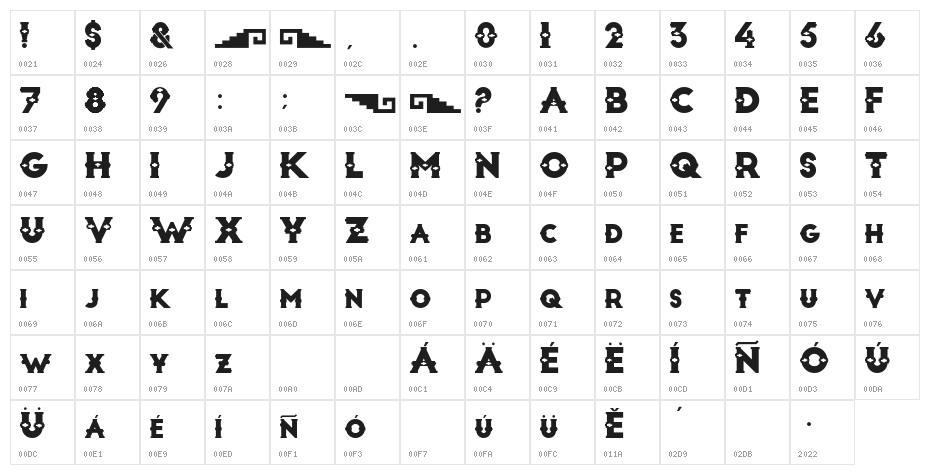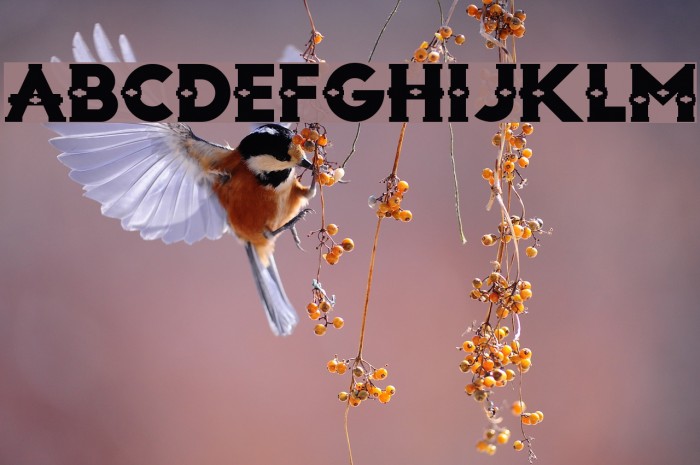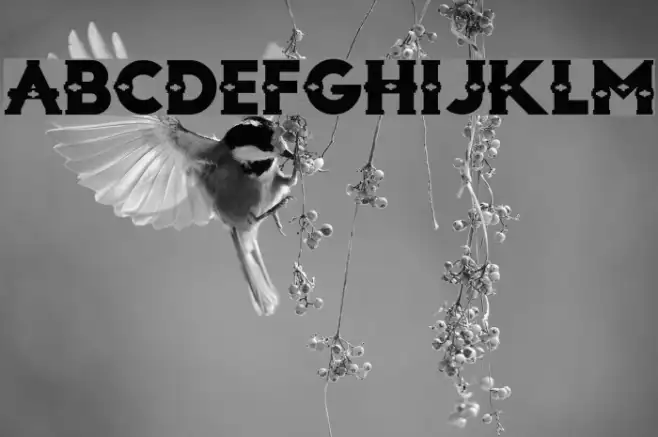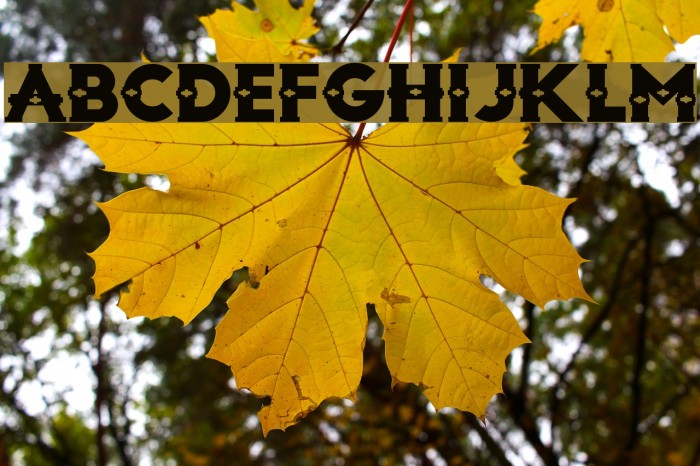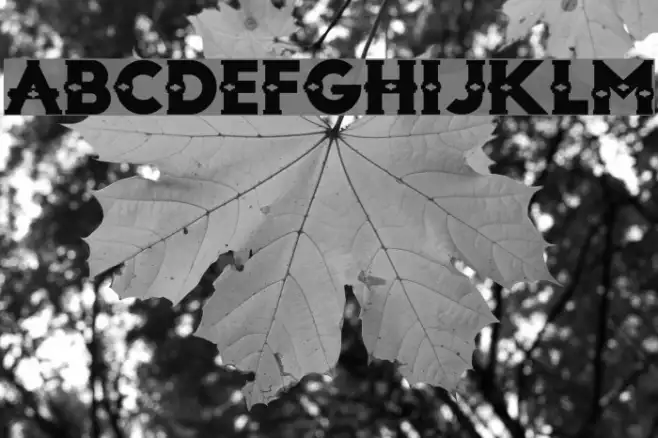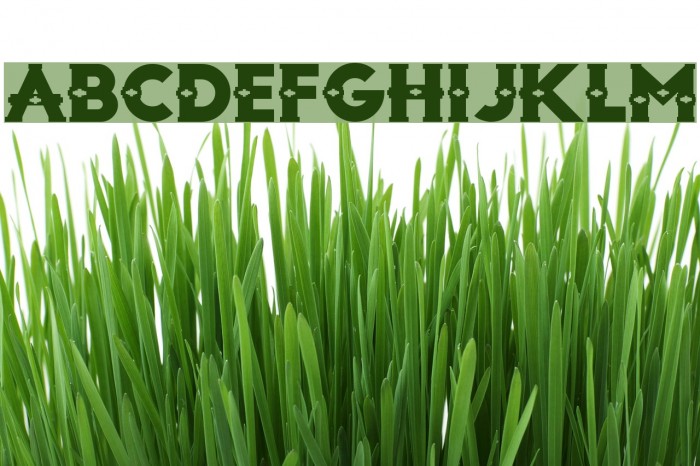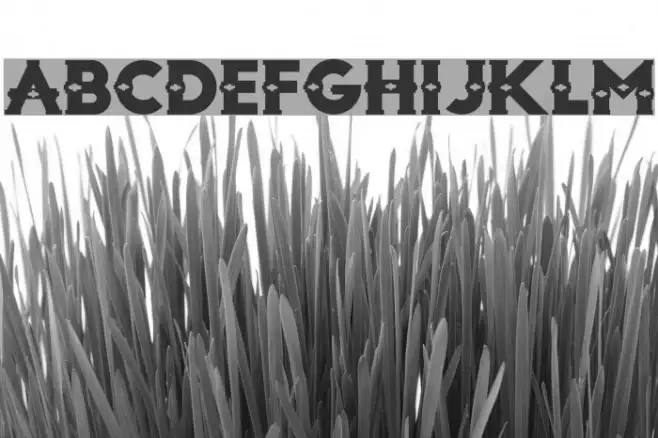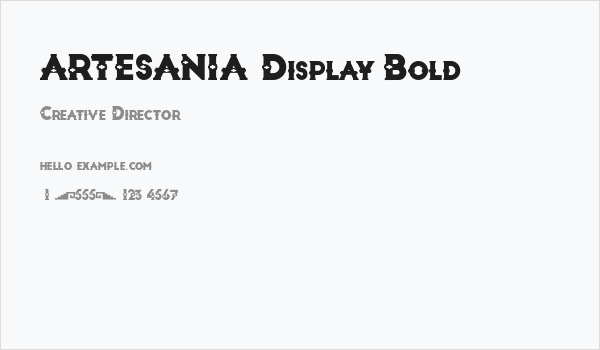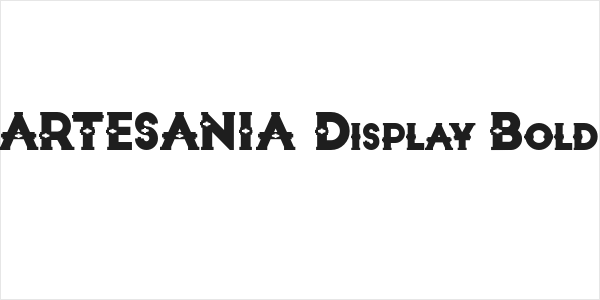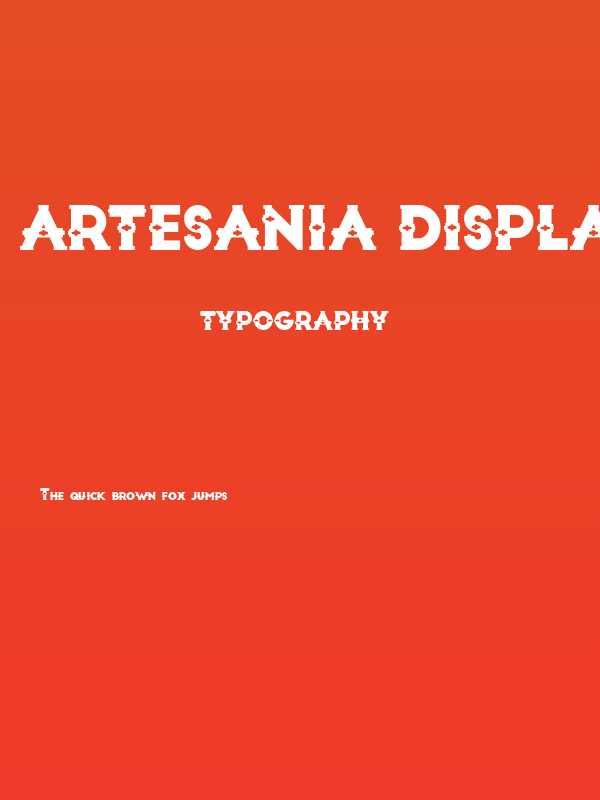
ARTESANIA Display Bold Font
ARTESANIA Display Bold Description
This font is a bold, decorative typeface characterized by its intricate and ornamental design. Each letter features unique embellishments that give it a distinct, artistic flair. The uppercase and lowercase letters maintain a consistent style, with bold strokes and decorative elements that create a striking visual impact. The numbers and special characters are equally ornate, making them stand out in any design. This font's boldness and decorative nature make it ideal for projects that require a strong visual presence.
| Proposed Projects | Ideal for branding, posters, event invitations, and any project requiring a bold, artistic touch. |